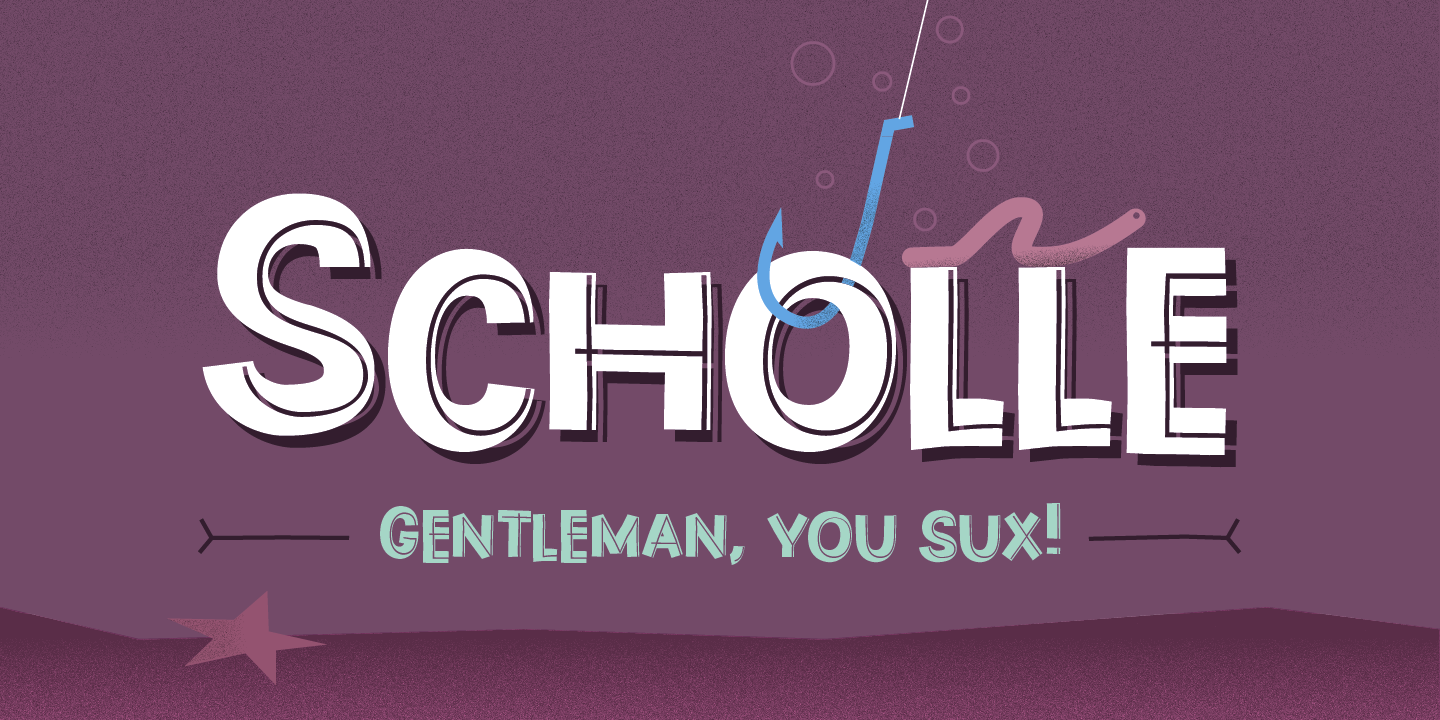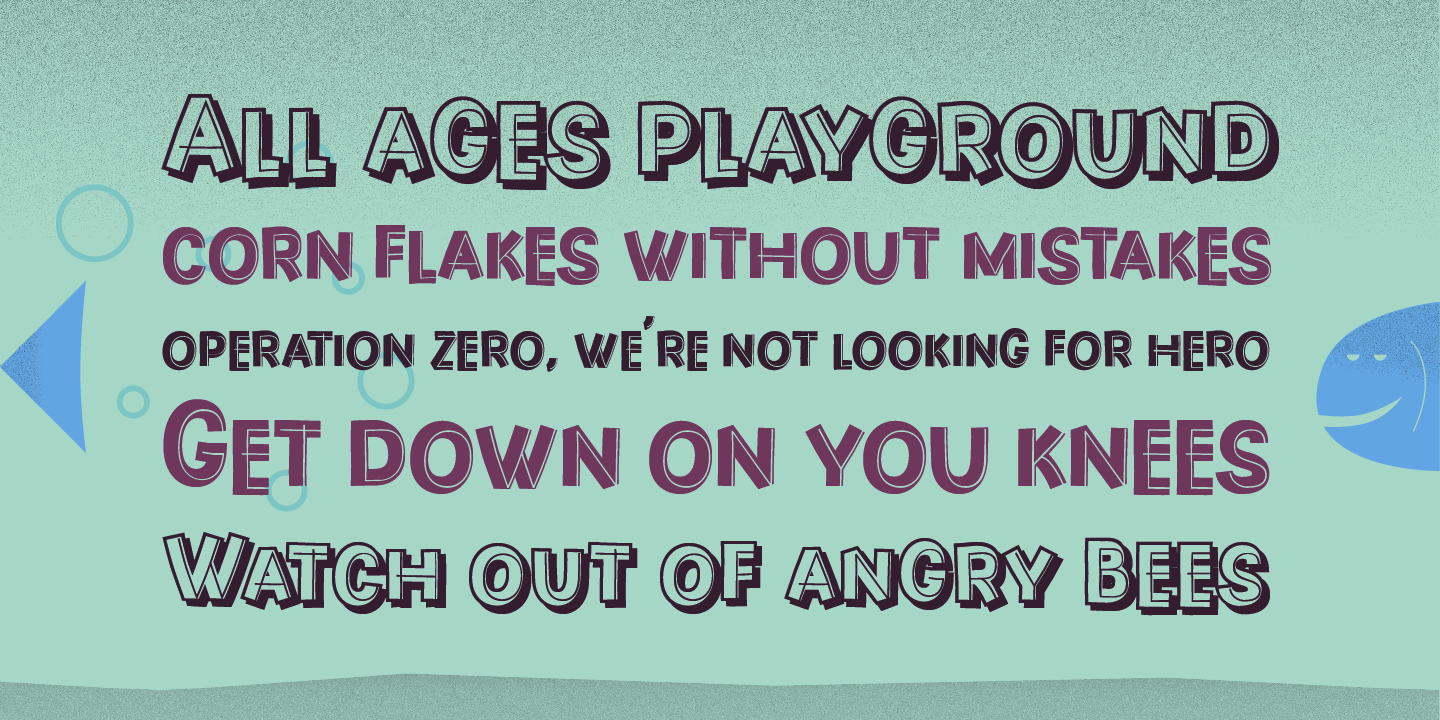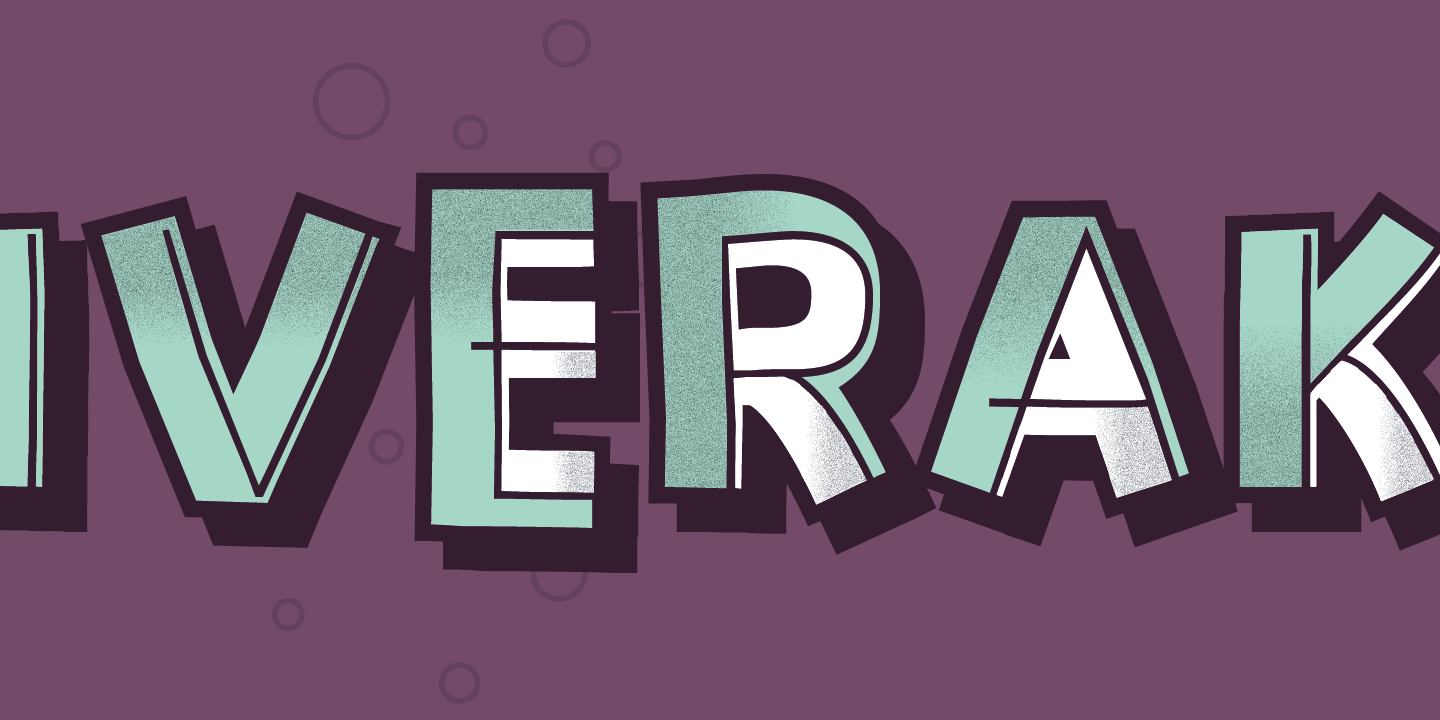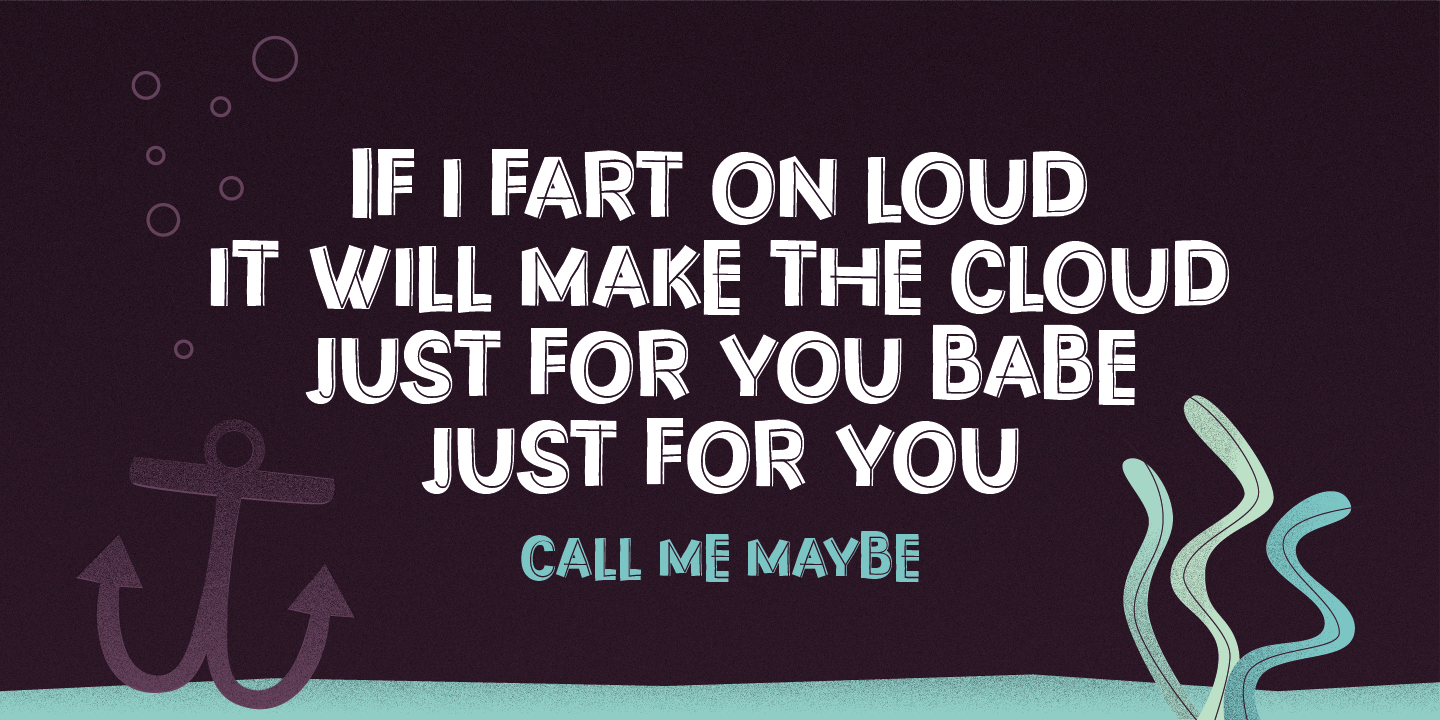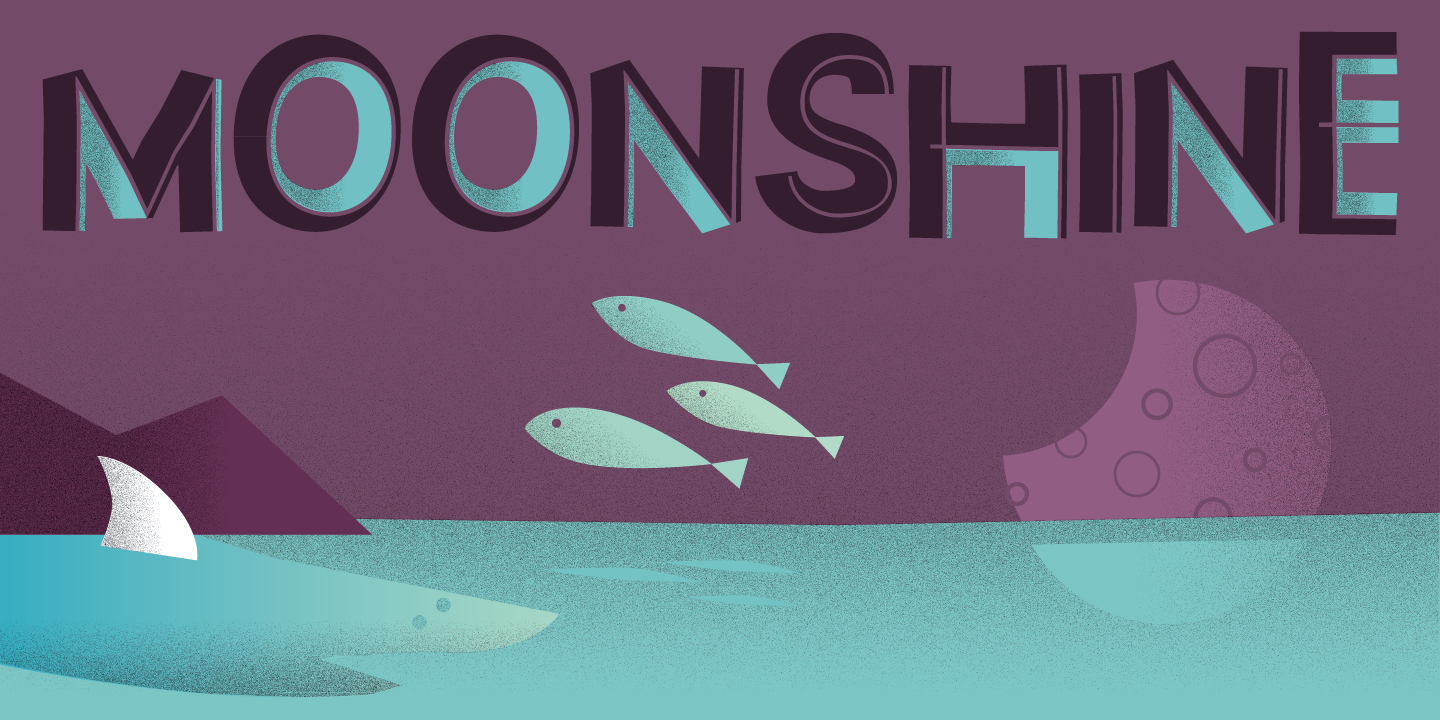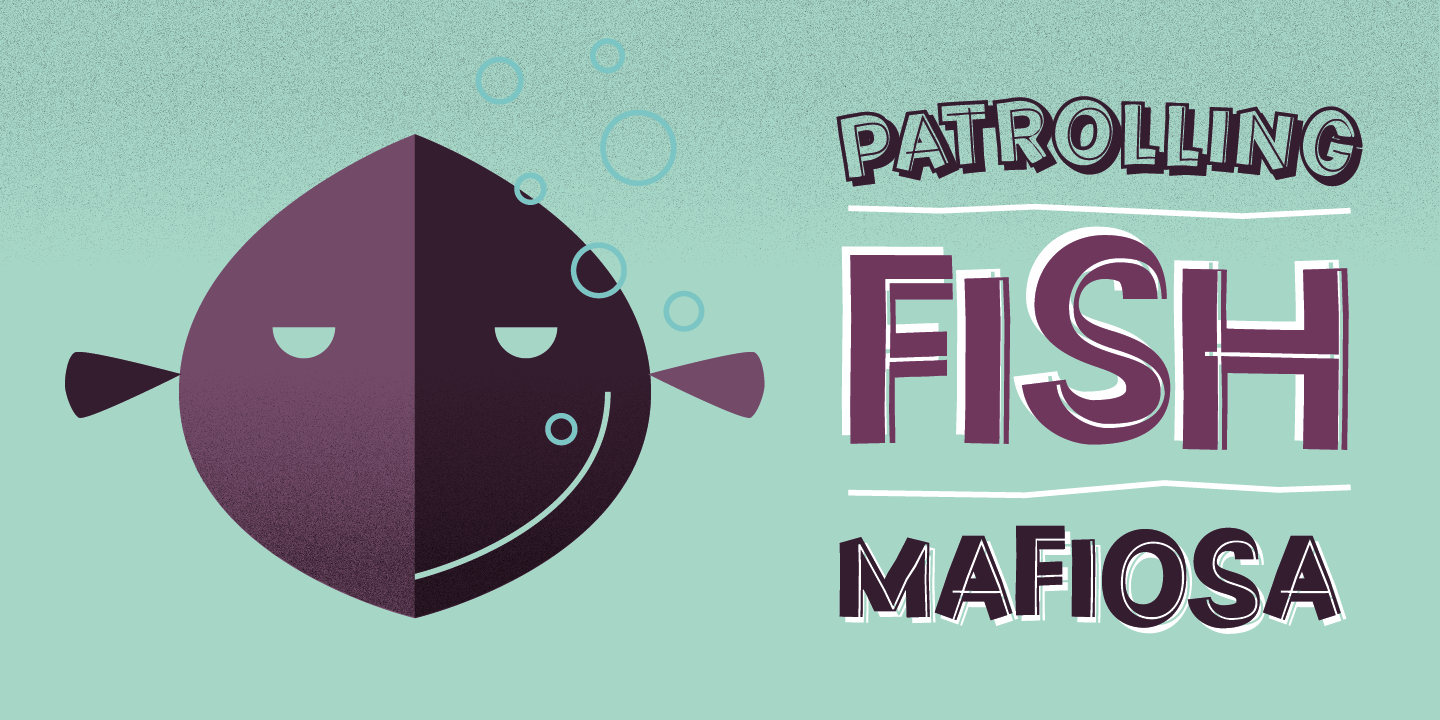
Characterized as inline display font family with childish manners, Scholle offers positive (Shadow) and negative (Regular) weights grouped by bouncing rhythm of its characters.